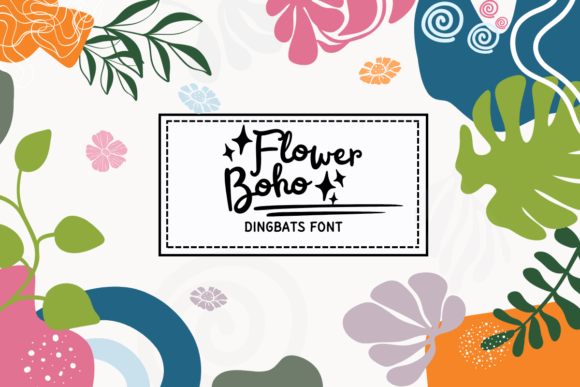
The Perfect Blend of Creativity and Whimsy
Do you remember the moment when a spark of creativity struck you, and you knew exactly what you wanted to create? For many designers, it’s that instant when the perfect font comes to mind, elevating their project from ordinary to extraordinary. For those who adore the bohemian vibe, the search is over – the Flower Boho Font is here to bring that unique charm to your creative endeavors.
This enchanting dingbats font is a masterclass in abstract floral design, perfect for adding a touch of whimsy to wedding invitations, DIY crafts, decorations, logos, and countless other creative projects. The Flower Boho Font is a valuable asset for designers seeking to infuse their work with a free-spirited essence, making it a must-have for anyone looking to add a personal touch to their designs.
Key Features of Flower Boho Font
- Font Style: A whimsical, handwritten font with a bohemian feel, ideal for creative and artistic projects.
- Unique Characteristics: Features a unique, hand-painted feel with subtle texture and imperfections, giving it a one-of-a-kind appearance.
Flower Boho Font Review
When I first saw the Flower Boho Font, I was immediately drawn to its whimsical, bohemian vibe ✨. The font is perfect for creating a free-spirited, eclectic feel in designs. The letterforms are hand-drawn and have a lovely, organic texture that adds to the overall charm.
One of the things that really works well in this font is its versatility ✨. It can be used for a wide range of applications, from wedding invitations to music festival posters. The font also comes in a variety of weights, which makes it easy to create a cohesive look across different design elements.
- ⚠️ The font may not be suitable for formal or corporate designs, as its bohemian feel may come across as unprofessional.
- ⚠️ The font’s organic texture may not be ideal for designs that require a high level of precision or technical accuracy.
- ⚠️ Some users may find the font’s whimsical feel to be too busy or overwhelming, especially in larger text sizes.
Overall, I think the Flower Boho Font is a great addition to any designer’s toolkit ✨. While it may have some limitations, its unique charm and versatility make it a great choice for designers who want to add a little bit of personality to their designs.
Tips: Use Flower Boho Font for titles and headings to add a touch of bohemian flair to your designs.
Tips: Use Flower Boho Font for custom typography and add a bohemian touch to your designs.
Tips: Use Flower Boho Font for titles and headings to add a touch of bohemian flair to your documents.
Flower Boho Font is perfect for:
Bohemian-themed branding and marketing materials
Handmade and artisanal product labels
Free-spirited and creative projects